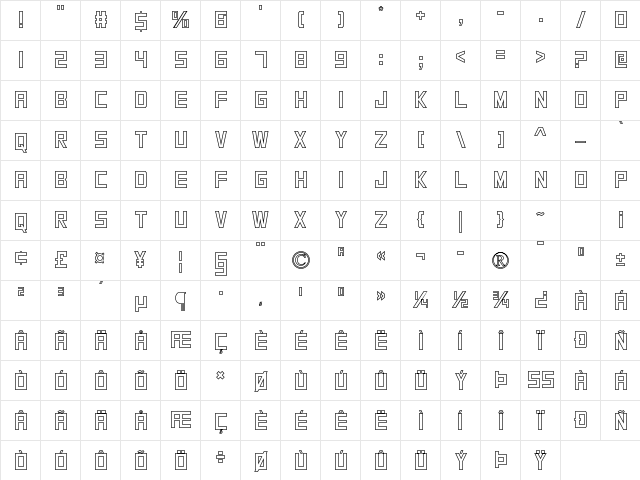
SquareFont Outline Regular
Design Context for SquareFont Outline Typeface
SquareFont Outline is built around its visual character rather than neutral utility — its distinctive forms are designed to make an impression at display sizes.
Font Pairing: Pair with a clean neutral sans-serif for body copy to let SquareFont Outline's character lead without overwhelming the composition.
Pro Tip: Treat SquareFont Outline as the centrepiece of your typographic hierarchy. One strong heading set in a decorative face can carry an entire layout.